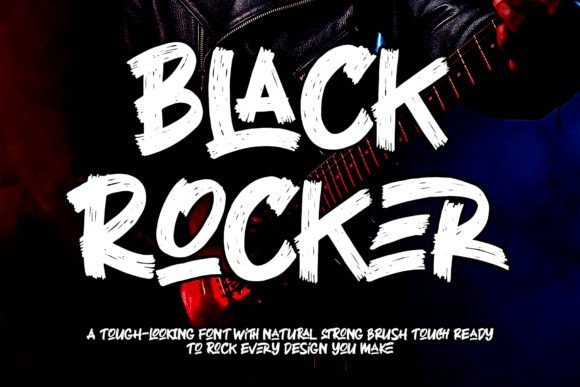
Black Rocker Brush Font
Black Rocker Brush Font is a brush bold font with a grunge brush style. It’s designed and shared by thomasaradea. This typeface is a natural, dry brush display font. It is a tough-looking font with a strong brush touch, ready to rock every design you are willing to create. This font is also fit for fitness and gym, extreme sport, car racing, BMX, skateboard, trial, trial, Xtreme travel, and many more!